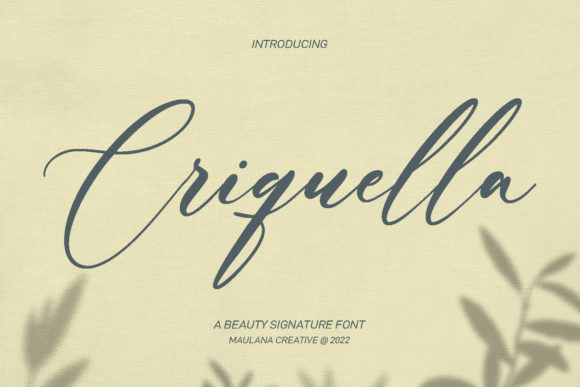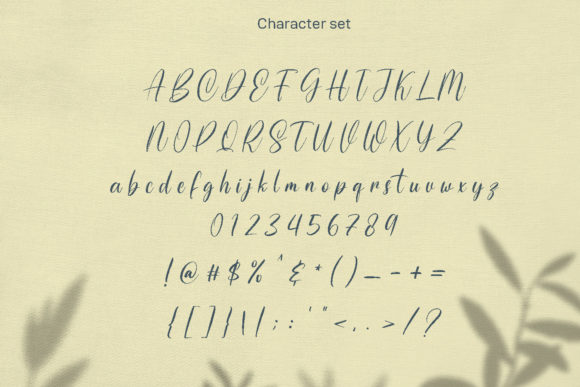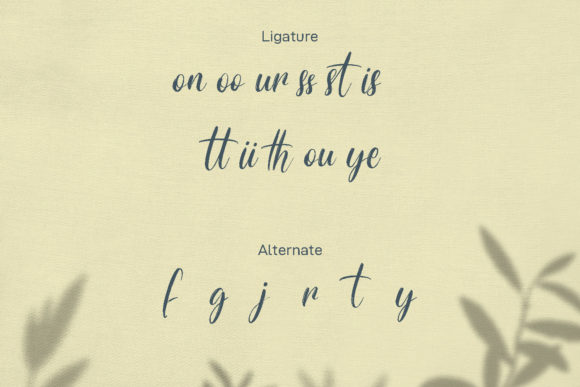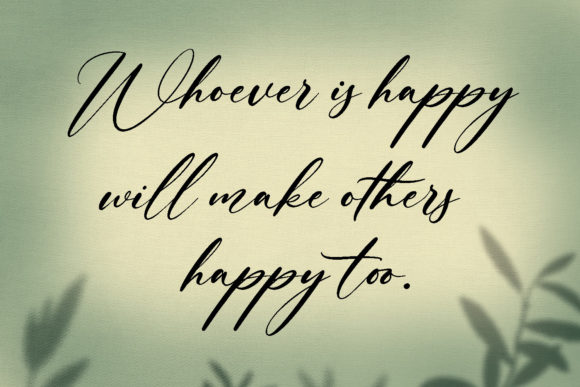
About Criquella Script Font
Criquella Script is a beautiful and stylish script font. Fall for its ravishing style and use it to create gorgeous designs. This font is PUA encoded which means you can access all glyphs and swashes with ease!